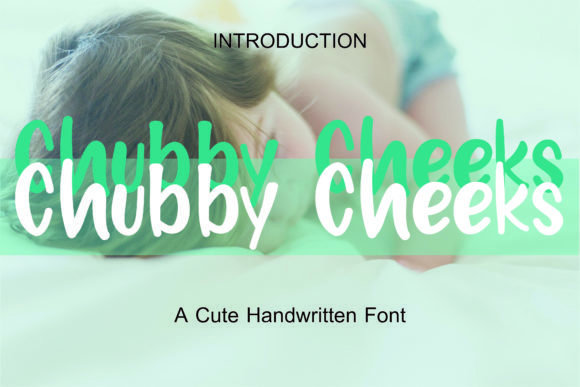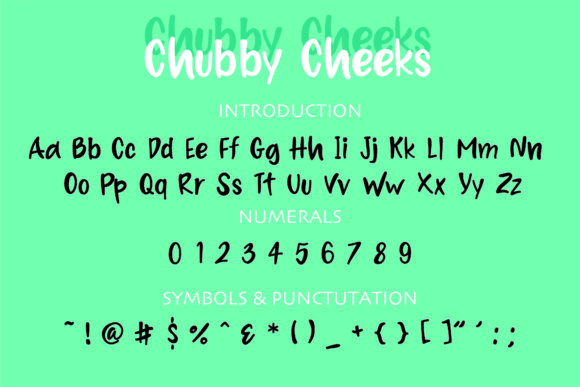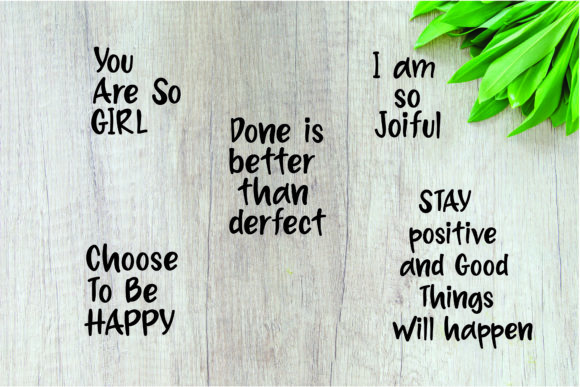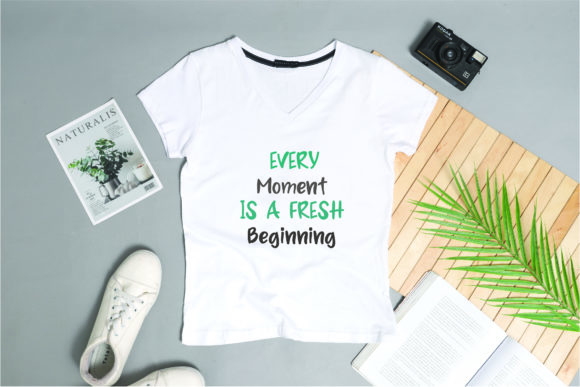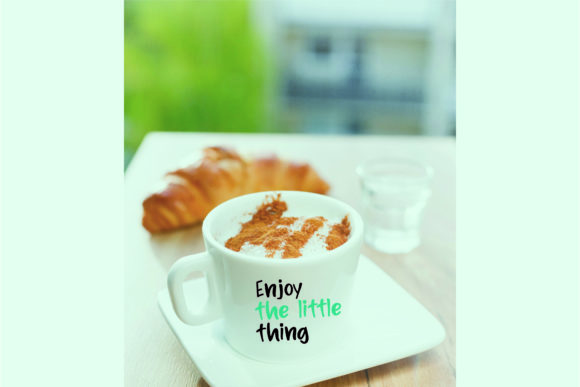
The Perfect Font for Adding a Touch of Whimsy to Your Designs
You know that moment when you’re working on a design project and you just can’t seem to find the right font to bring it all together? The one that’s going to make your text pop and add a dash of personality to your creation? For me, that moment usually comes when I’m trying to convey a sense of friendliness and approachability.
Enter the Chubby Cheeks Font, a delightful handwritten font that’s perfect for adding a touch of whimsy to your designs. This sweet and full of life font is designed to bring a smile to your face and a spring to your step. Its friendly and neat style makes it a wonderful choice for brightening up your designs, from invitations and greeting cards to social media graphics and branding materials.
Key Features of Chubby Cheeks Font
- Font Family: Chubby Cheeks is a unique, hand-drawn font that features playful, rounded shapes and a mix of serif and sans-serif elements.
- Character Count: Chubby Cheeks includes over 500 characters, including uppercase and lowercase letters, numerals, punctuation marks, and special characters.
- Unique Characteristics: Chubby Cheeks features a distinctive, childlike charm, with rounded edges and playful flourishes that make it perfect for designs targeting children, families, and education-related projects.
Chubby Cheeks Font Review
As a designer, I was excited to dive into the Chubby Cheeks font, but my experience was a mixed bag. Here’s what I liked and didn’t like.
- The Chubby Cheeks font is perfect for creating a playful and whimsical feel in your designs.
- The font is highly customizable, with a wide range of style options and variations.
- The font’s unique characteristics, such as the rounded edges and soft curves, make it stand out from more generic fonts.
- The font may be too cursive for certain designs, which could make it difficult to read in smaller sizes or at a distance.
- The font’s high customization options can be overwhelming for designers who prefer a more straightforward design process.
- The font may not be suitable for formal or professional designs, where a more serious and traditional font is preferred.
The Chubby Cheeks font is a great choice for designers who want to add a playful touch to their projects. While it may not be suitable for all types of designs, its unique characteristics and high customization options make it a valuable addition to any designer’s toolkit.
Practical Application Guide for Chubby Cheeks Font
Use the Chubby Cheeks font for titles and headings to add a playful touch to your designs. Experiment with different font sizes and colors to create visual interest. Avoid using the Chubby Cheeks font for large blocks of text, as it can be difficult to read.
The Chubby Cheeks font is ideal for children’s party invitations, nursery decor, and playful marketing materials. It’s also great for adding a whimsical touch to food labels and packaging designs.
Alternatives to Chubby Cheeks Font
Great Vibes is a modern script font that resembles handwriting. It’s perfect for creating a friendly, approachable feel in designs such as invitations, quotes, and social media graphics.
Compared to Chubby Cheeks Font, Great Vibes has a more refined and elegant look, making it suitable for a wider range of applications.
Alex Brush is a beautiful script font that combines elegance and sophistication. It’s ideal for luxury brands, weddings, and high-end designs that require a touch of sophistication.
Alex Brush has a more refined and elegant look compared to Chubby Cheeks Font, making it suitable for designs that require a more polished feel.